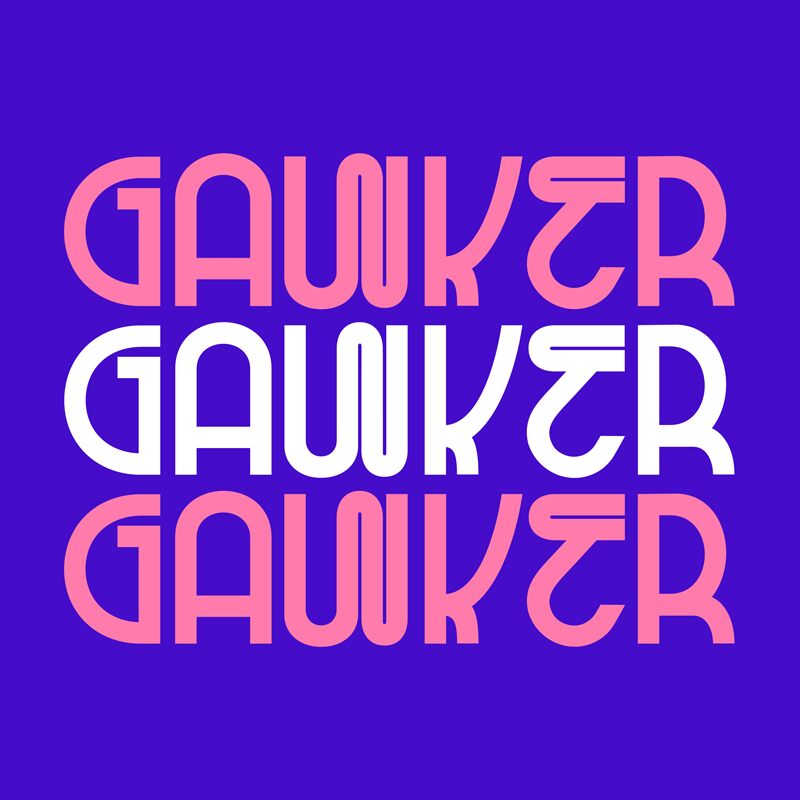
GAWKER Regular
Gawker, the groovy semi-light display font designed by Tyler McFaul, is perfect for projects that require a touch of retro flair. Its semi-condensed width adds a sleek modern edge to its vintage-inspired style. Use Gawker for eye-catching headlines or titles on posters, flyers, and websites. Pair it with bold colors and geometric shapes for a fun and playful aesthetic that's sure to grab attention. This font is also suitable for branding projects that aim to evoke nostalgia or a sense of whimsy. With its unique character and distinctive style, Gawker is the perfect choice for any project that needs a little extra personality.